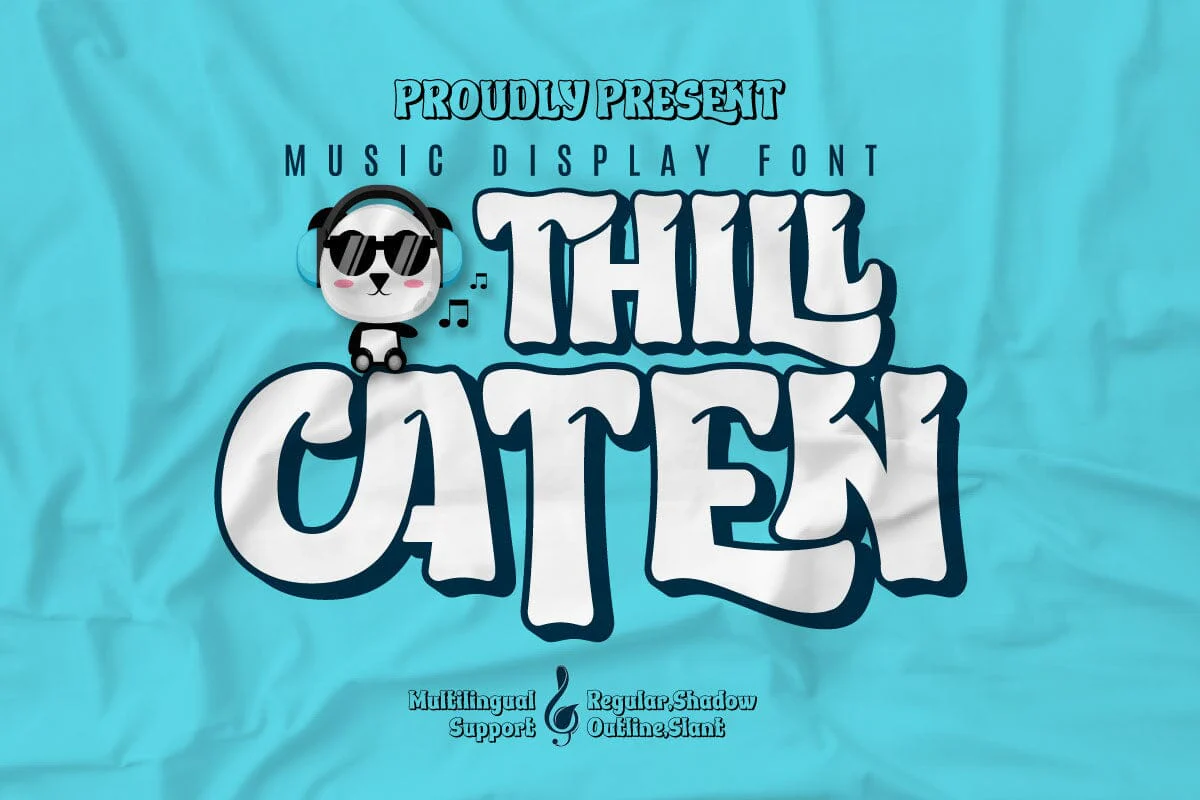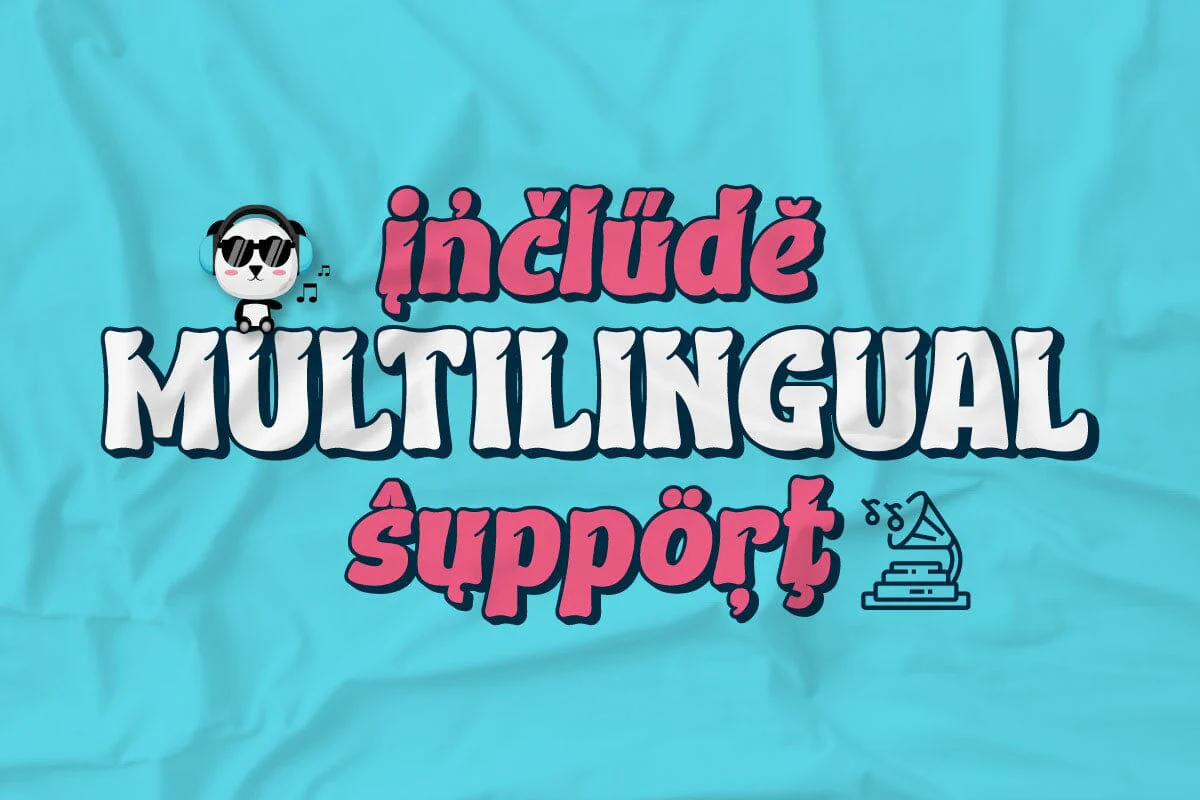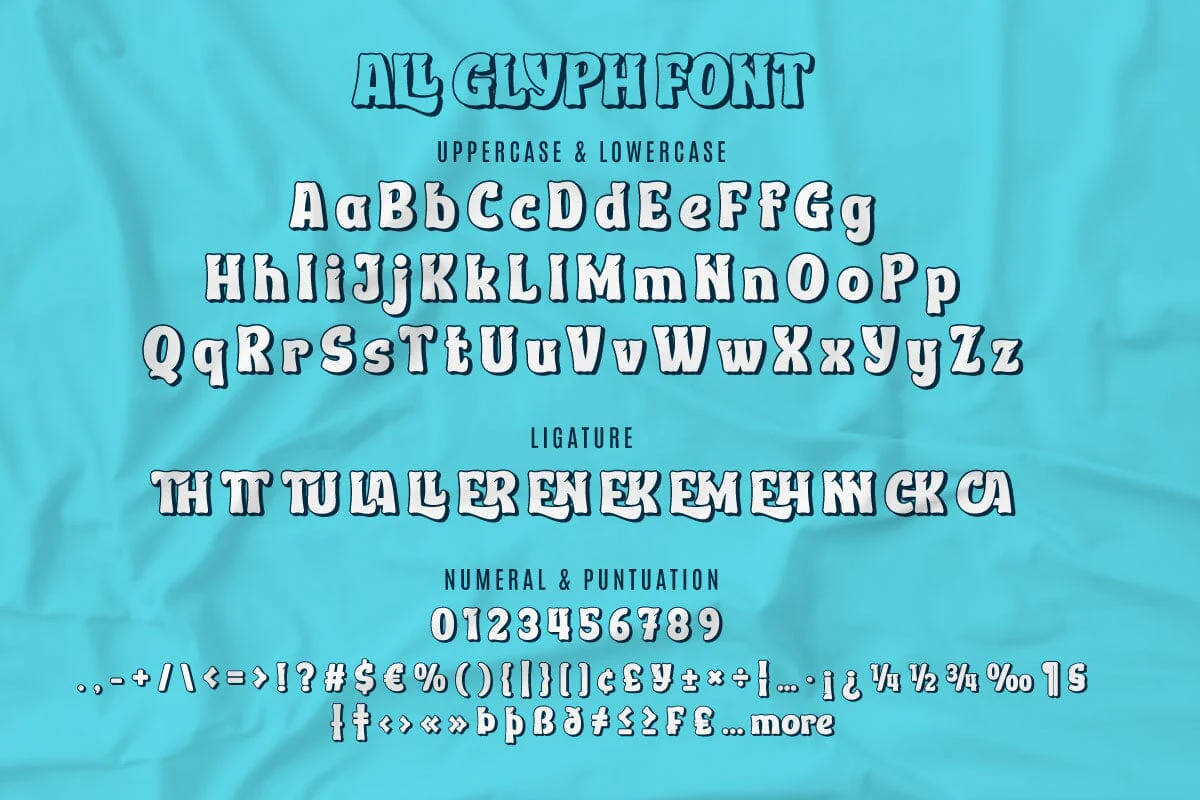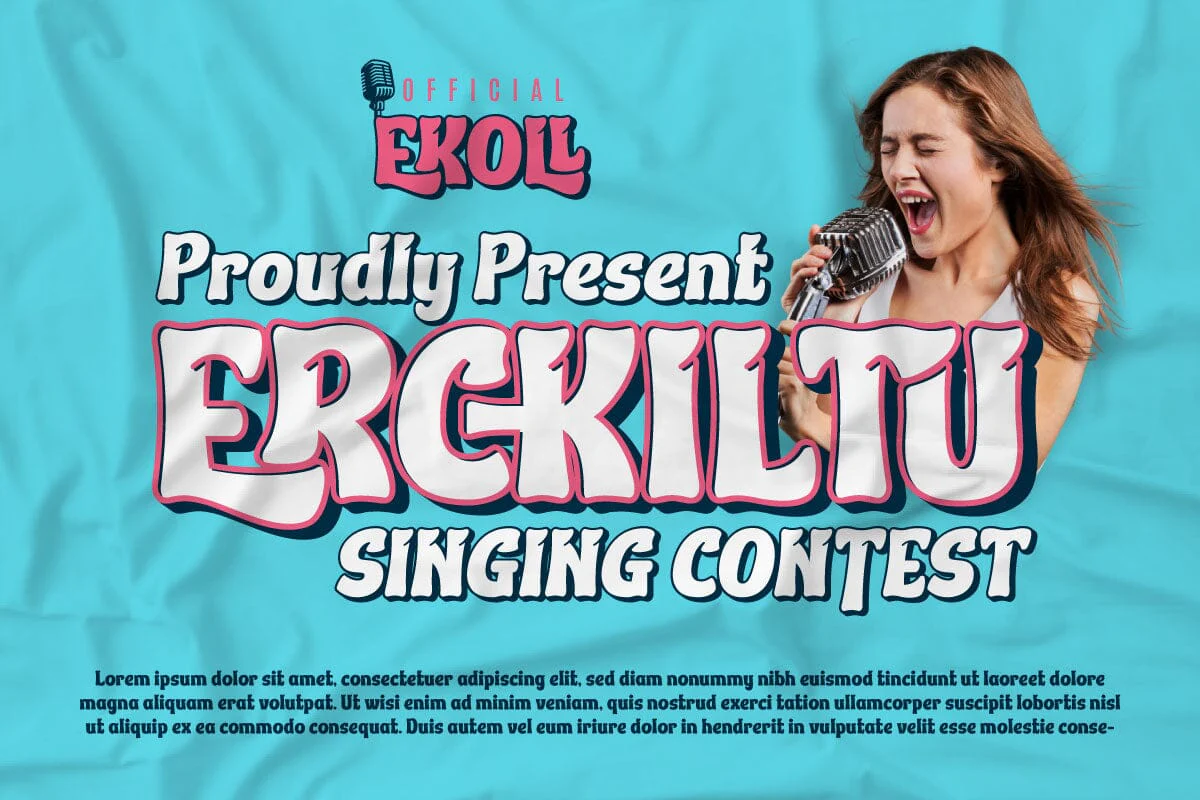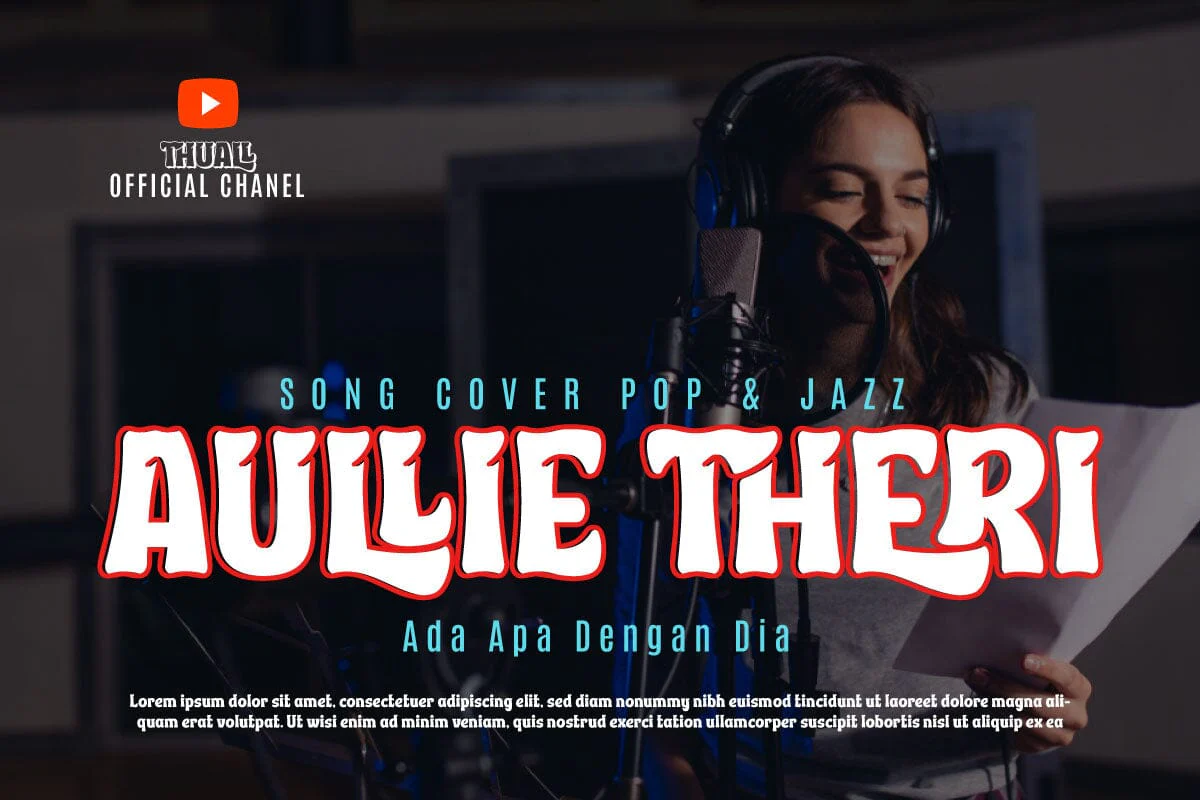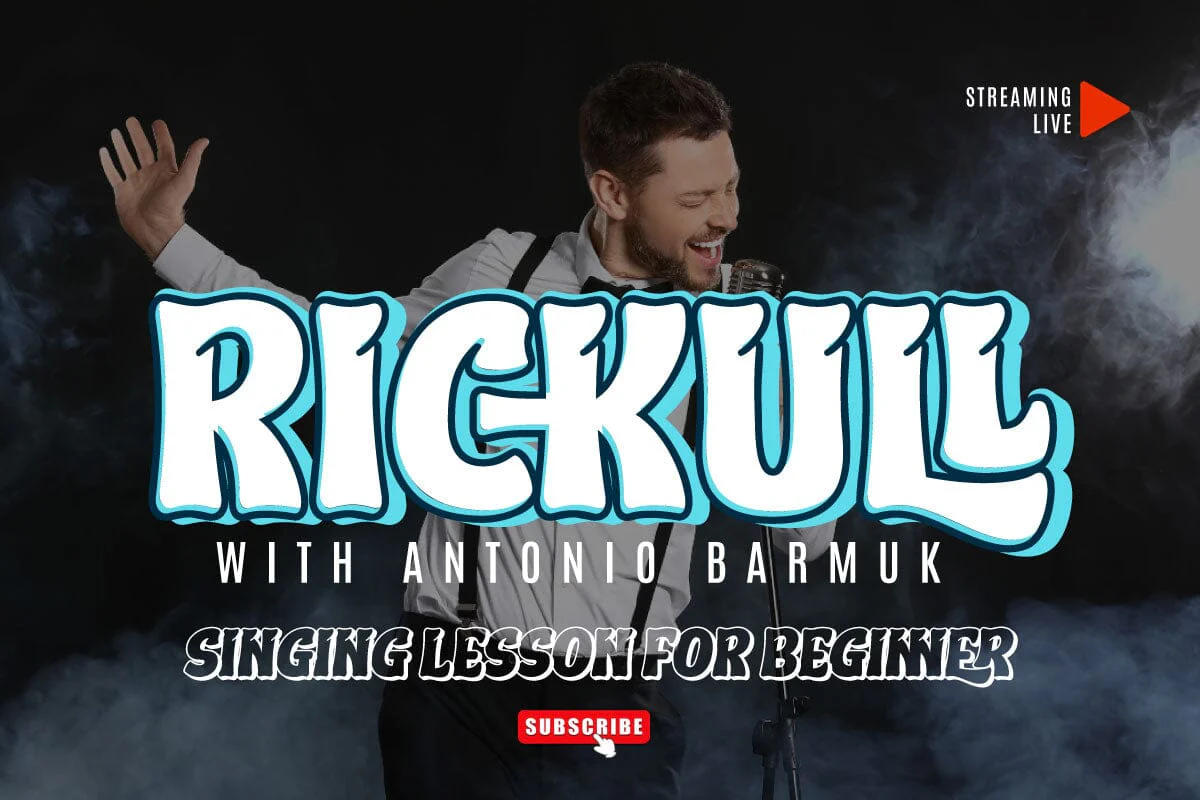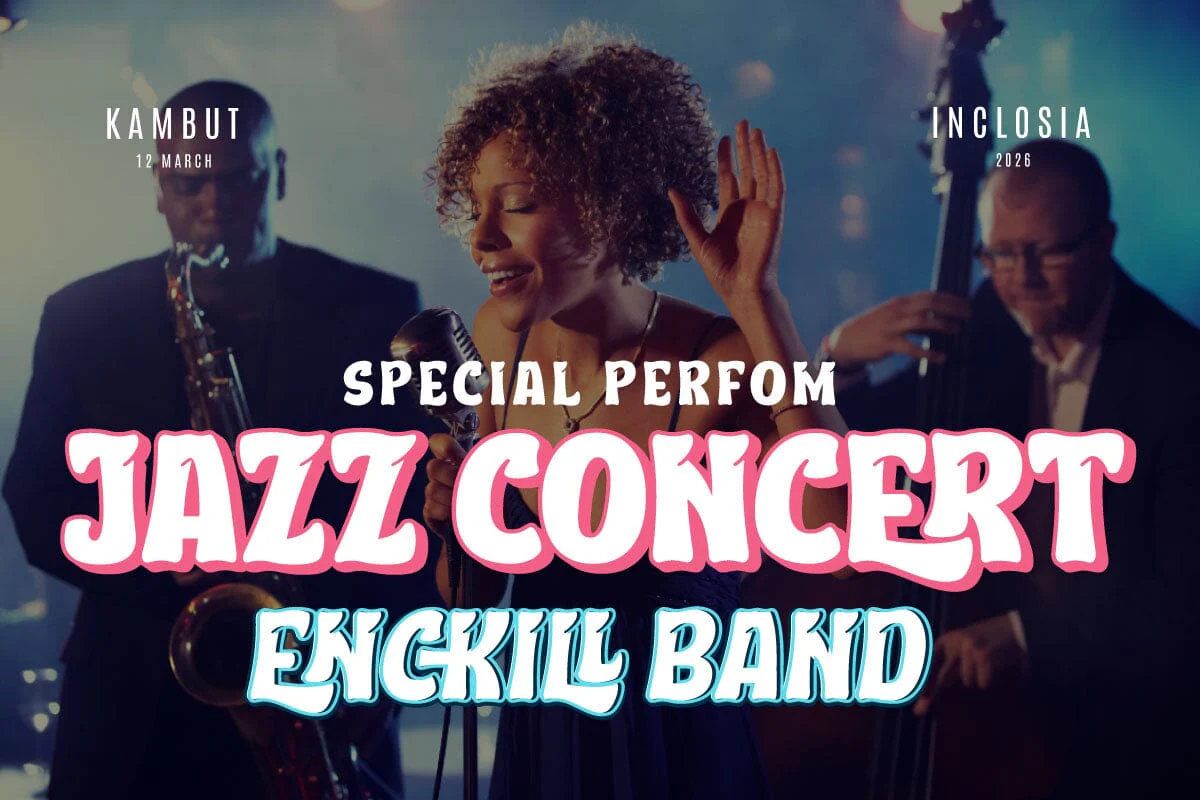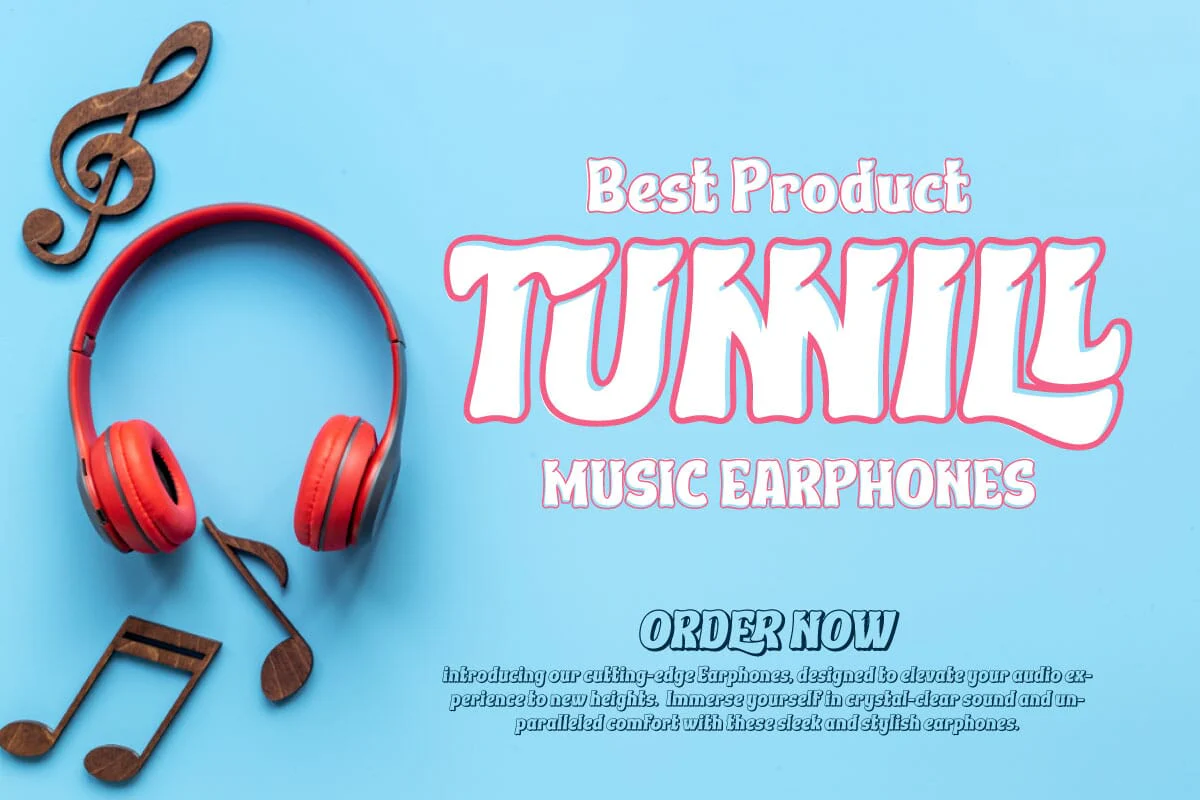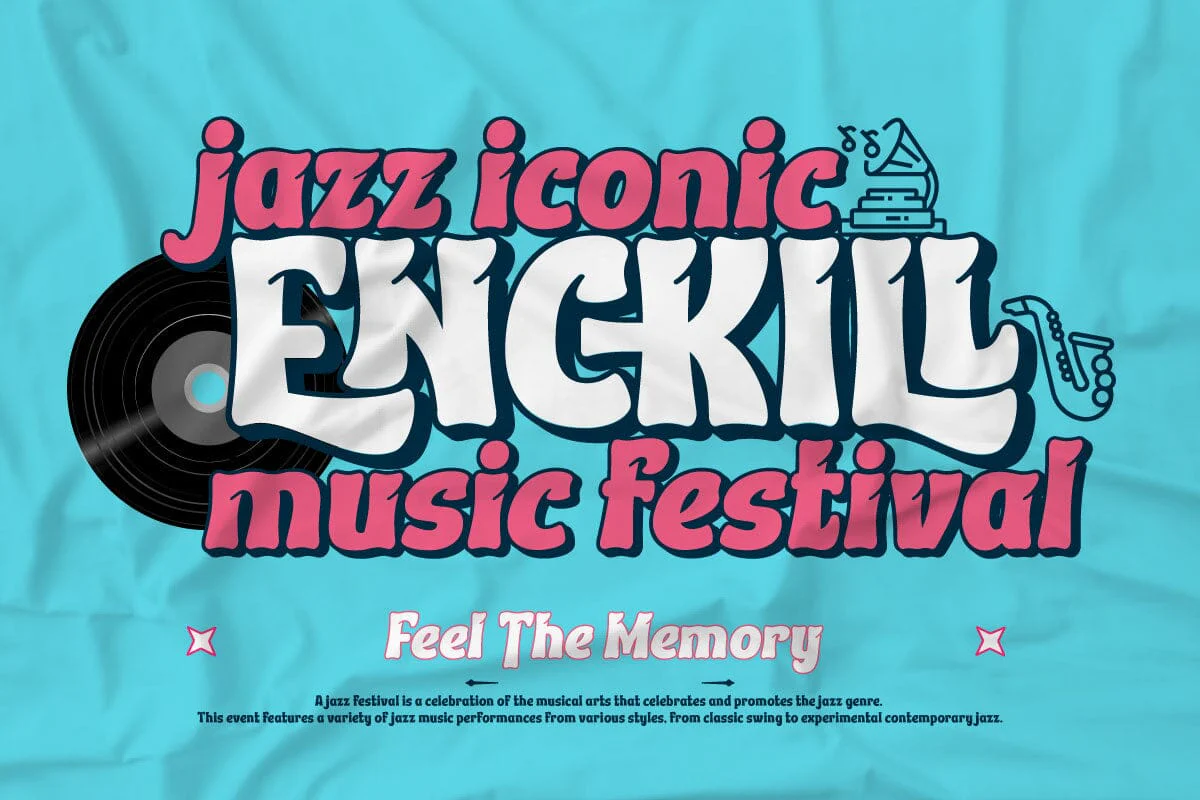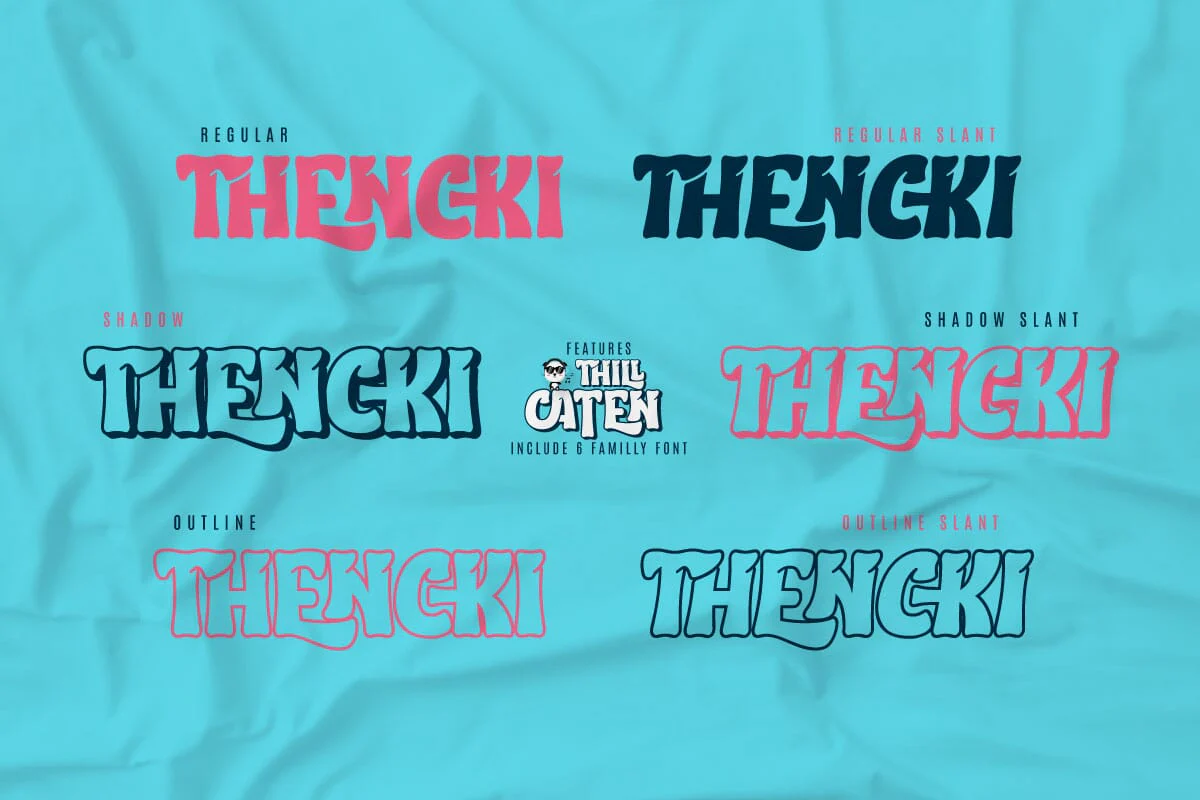
Thill Caten - Display Font
Thill Caten is a charming and exclusive typeface specially designed to bring an artistic touch and boldness to the visual representation of music. This font combines modern elements with classic elegance, creating a unique and alluring character.
With sharp yet soft lines, Thill Caten gives a dynamic and energetic impression, reflecting the boundless spirit of music. Each letter is designed with artistic precision, bringing a professional and creative feel to every text display.
The sharpness of the angles and the harmonious blend of typographic elements create a stunning visual balance. Thill Caten conveys a sense of boldness and innovation, suitable for use in a variety of music visual projects, from concert posters to album designs.
With its strong appeal and unique character, Thill Caten is the ideal choice for those who want to give a special identity to their musical projects. This font can convey an artistic message in an exclusive and engaging style, creating an unforgettable visual experience for its audience.
Thill Caten is a charming and exclusive typeface specially designed to bring an artistic touch and boldness to the visual representation of music. This font combines modern elements with classic elegance, creating a unique and alluring character.
With sharp yet soft lines, Thill Caten gives a dynamic and energetic impression, reflecting the boundless spirit of music. Each letter is designed with artistic precision, bringing a professional and creative feel to every text display.
The sharpness of the angles and the harmonious blend of typographic elements create a stunning visual balance. Thill Caten conveys a sense of boldness and innovation, suitable for use in a variety of music visual projects, from concert posters to album designs.
With its strong appeal and unique character, Thill Caten is the ideal choice for those who want to give a special identity to their musical projects. This font can convey an artistic message in an exclusive and engaging style, creating an unforgettable visual experience for its audience.